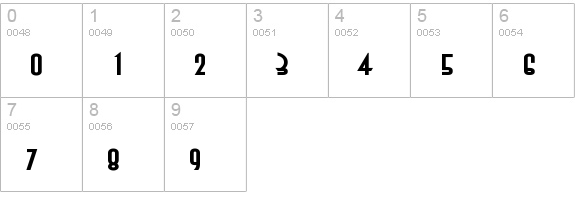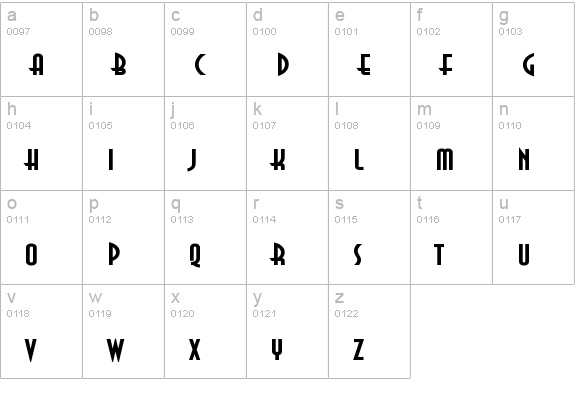
Astrid Short Font Details
Astrid Short font is a stylish and modern typeface that exudes elegance and sophistication. With its clean lines and sleek design, this font is perfect for a wide range of projects, from branding to editorial design. The compact and rounded letterforms give Astrid Short font a friendly and approachable look, making it ideal for conveying a sense of warmth and friendliness in your designs. Best of all, Astrid Short font is available for free download at FontsMarket.com. This means you can easily add this versatile font to your collection without breaking the bank. Whether you're a seasoned designer looking to refresh your font library or a newcomer in need of high-quality typefaces, Astrid Short font is a fantastic choice that won't cost you a dime. Download it today and elevate your designs with this beautiful and versatile font.